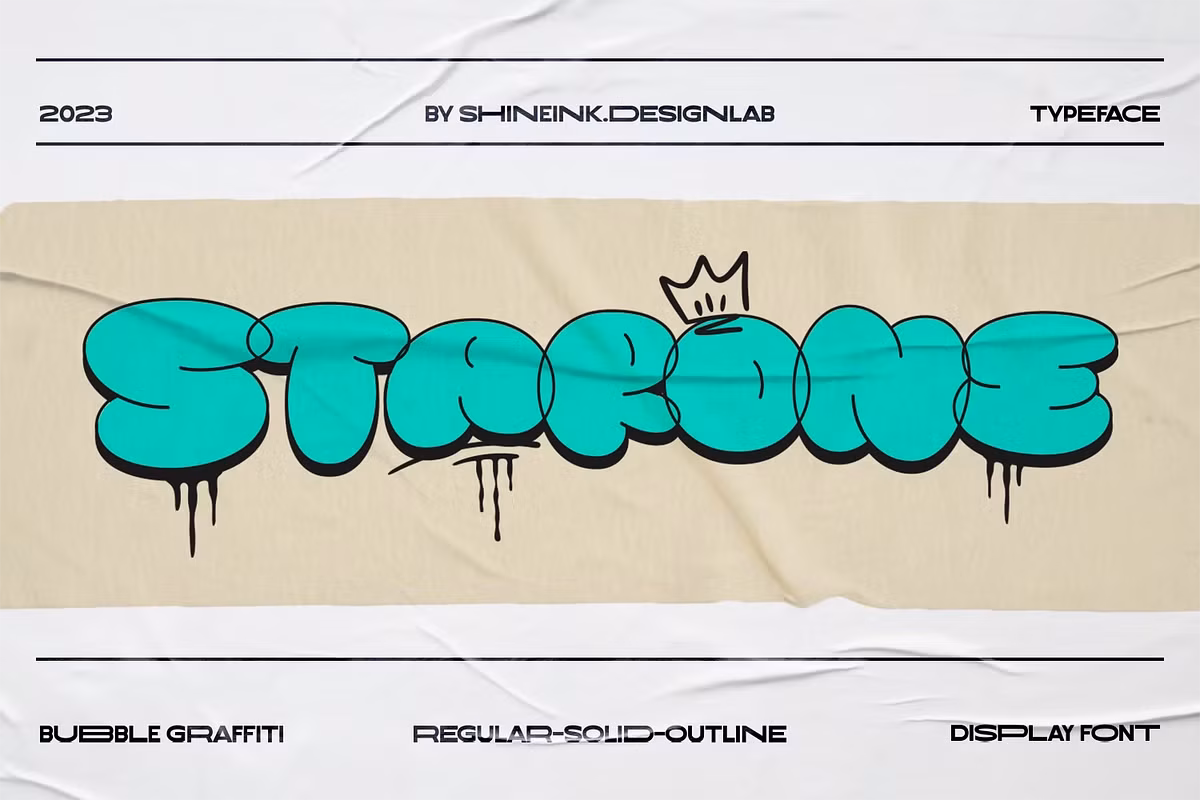
Starone Free Download
Starone Font Free Download
Starone Font is a captivating typeface that seamlessly blends boldness with smooth, rounded characteristics, embodying the raw energy of urban artistry. Its robust, bubble-like letterforms exude a playful yet impactful aesthetic, making it an excellent choice for projects aiming to convey rebellion, creativity, and modernity. Ideal for posters, logos, streetwear branding, and digital art, Starone Font commands attention with its unique personality and dynamic presence. You can download Starone Font Free Download for personal use to explore its features. For commercial applications, please ensure you purchase the appropriate license to comply with usage rights